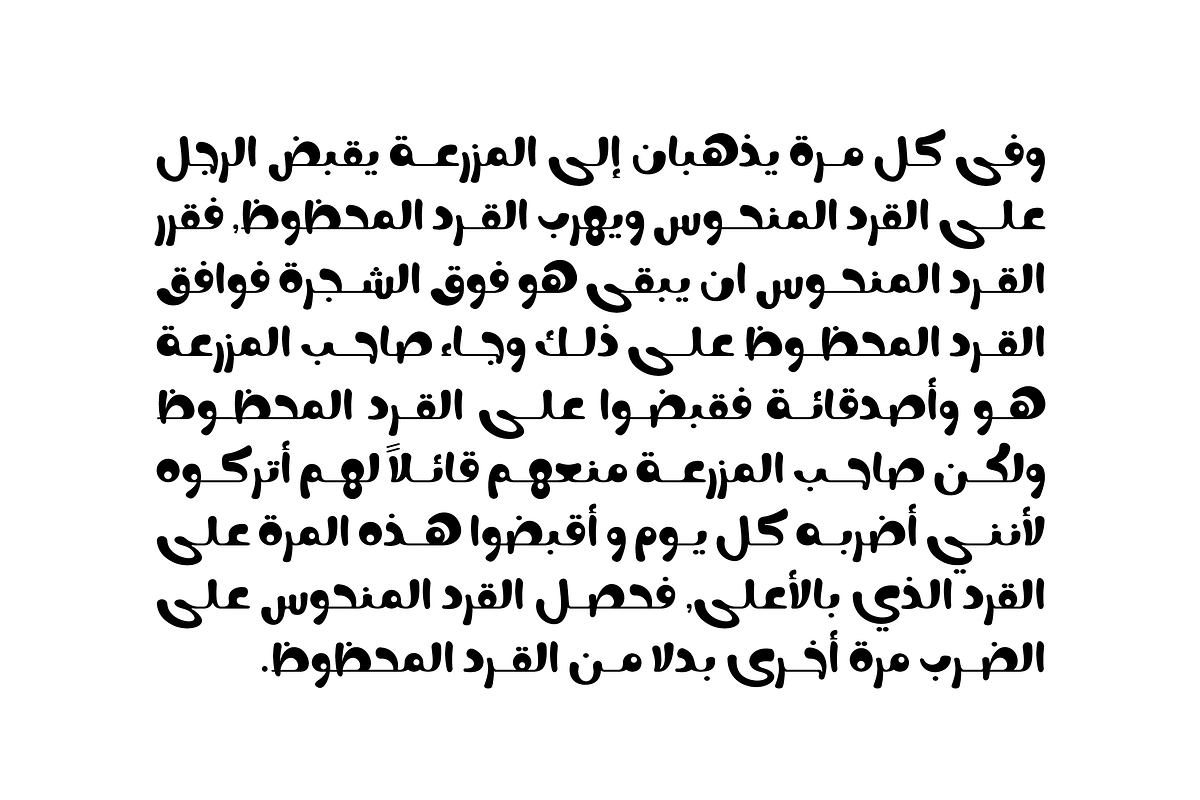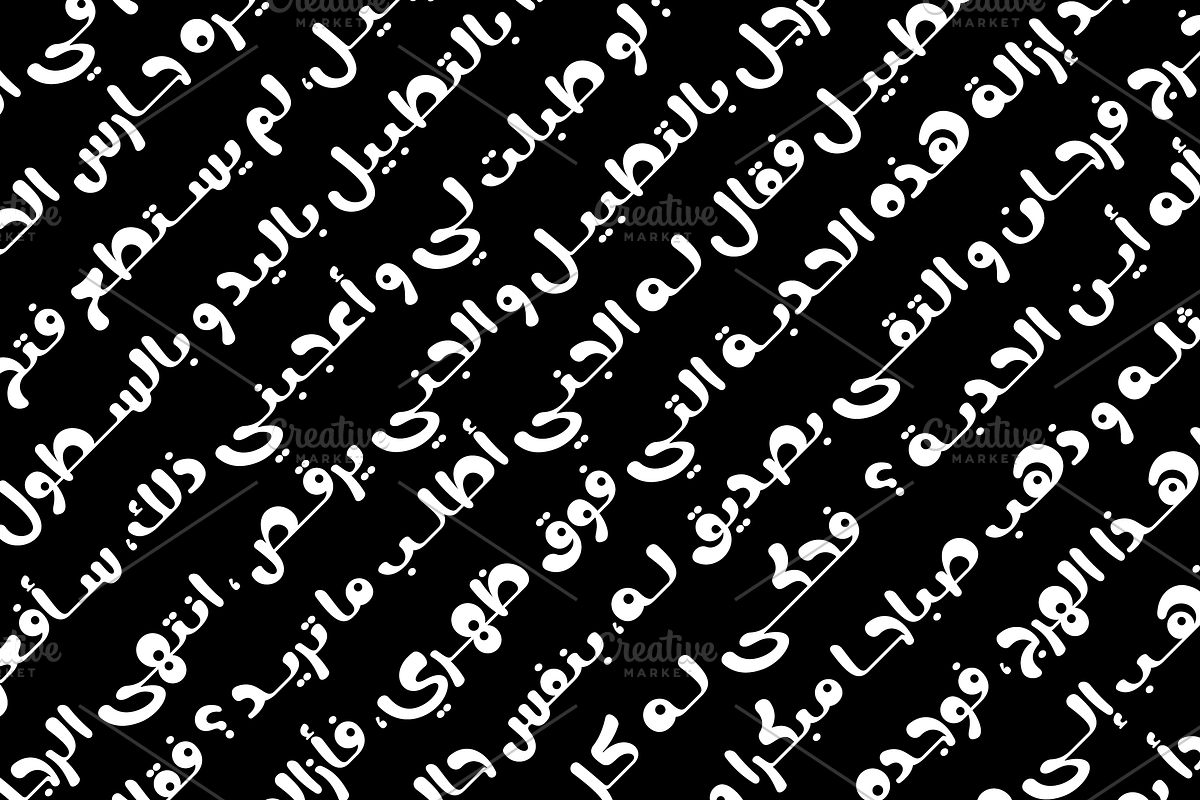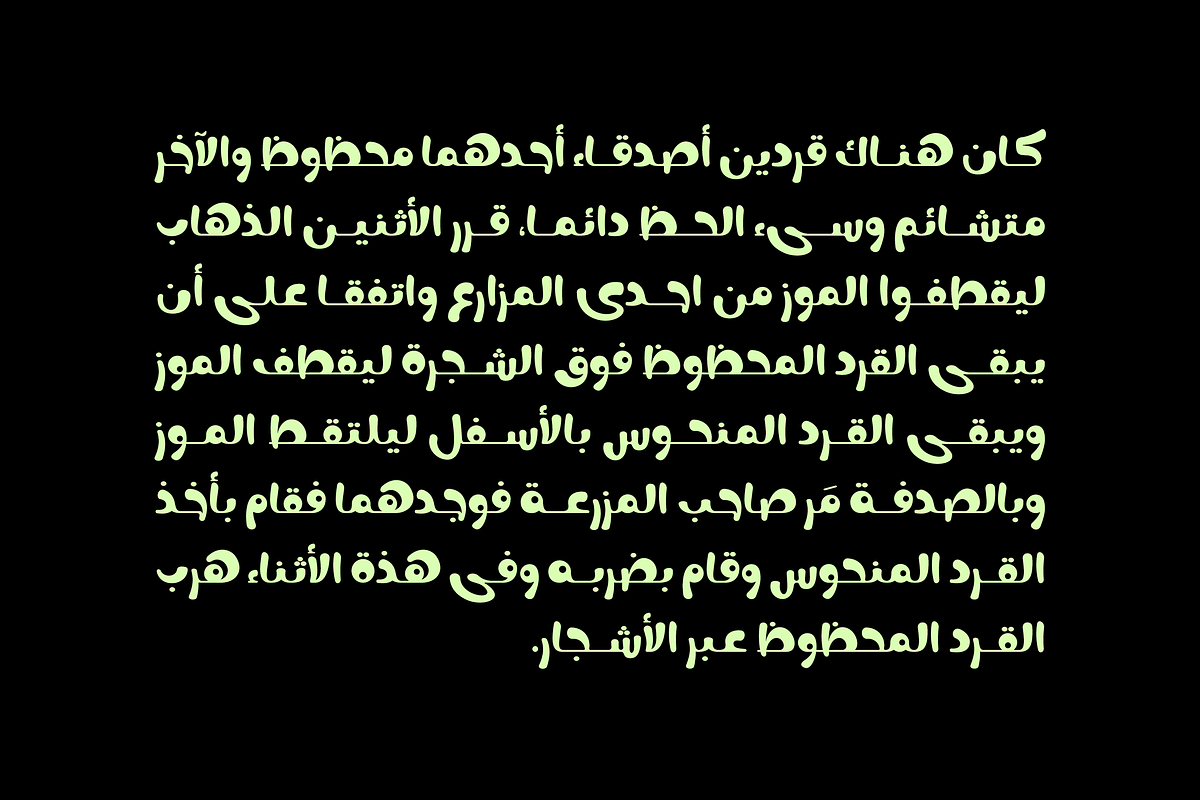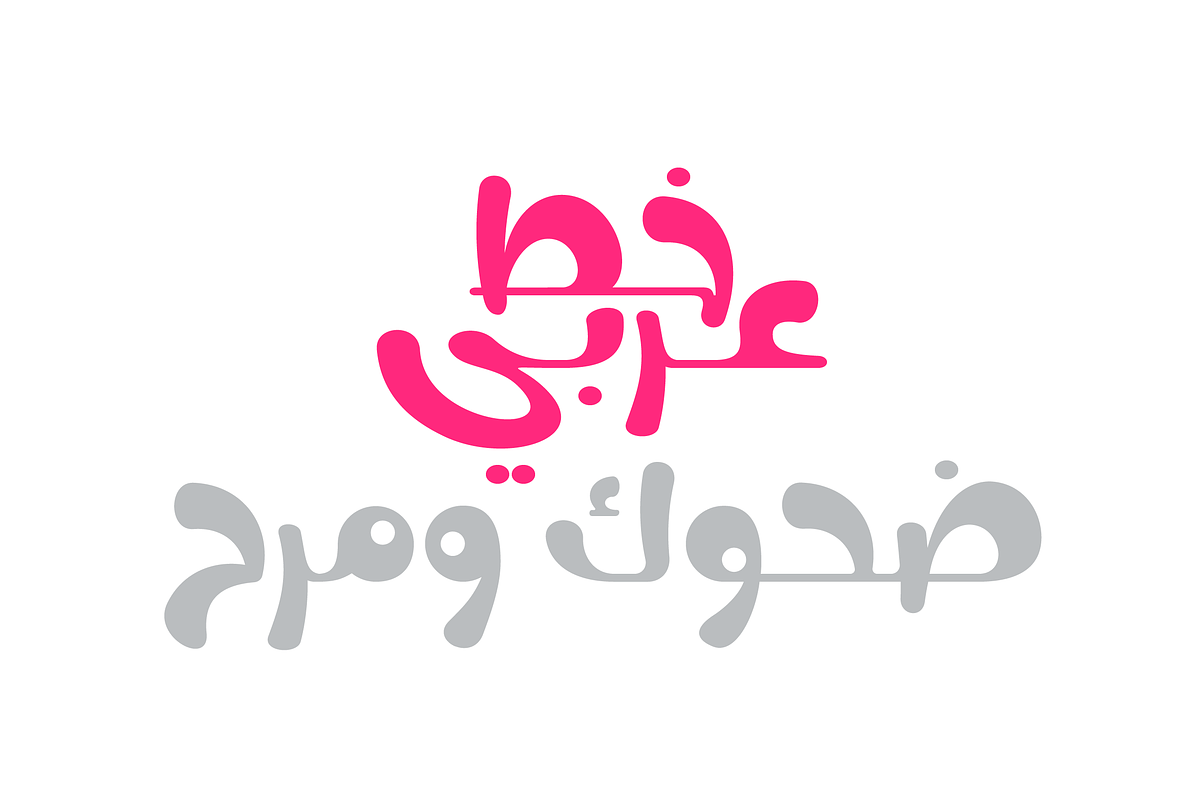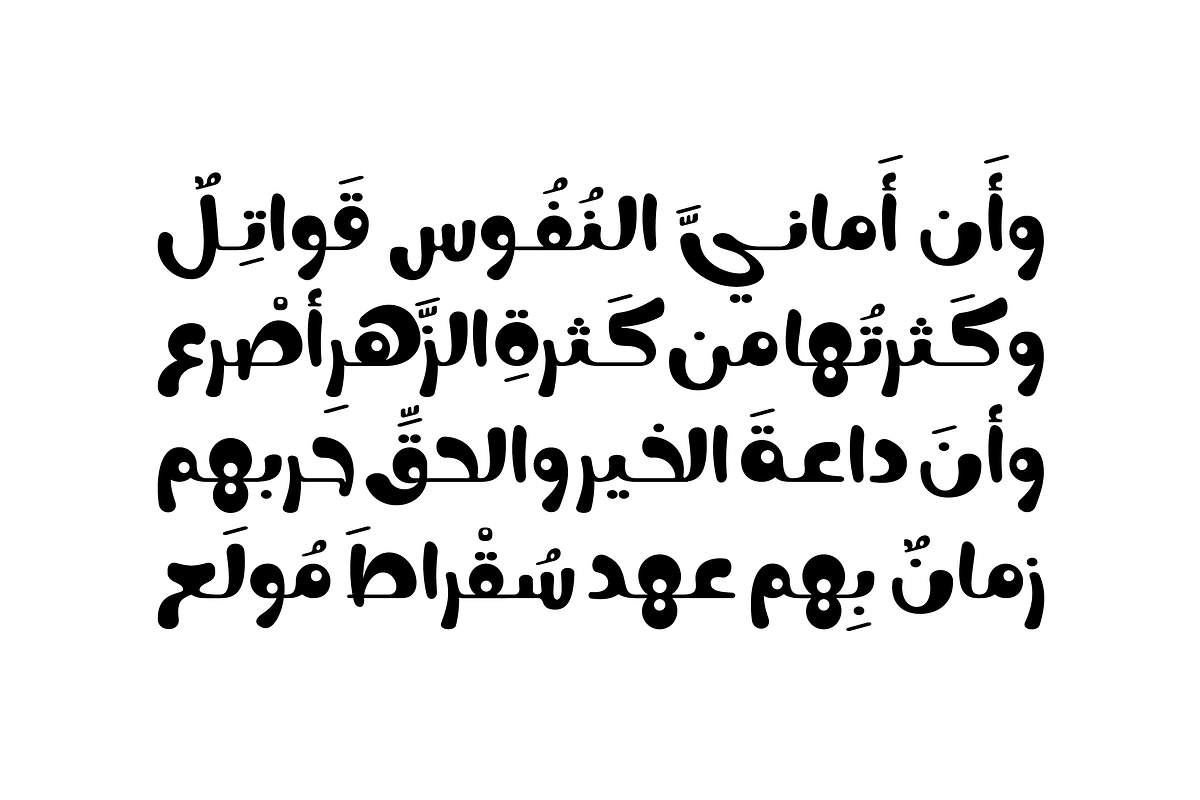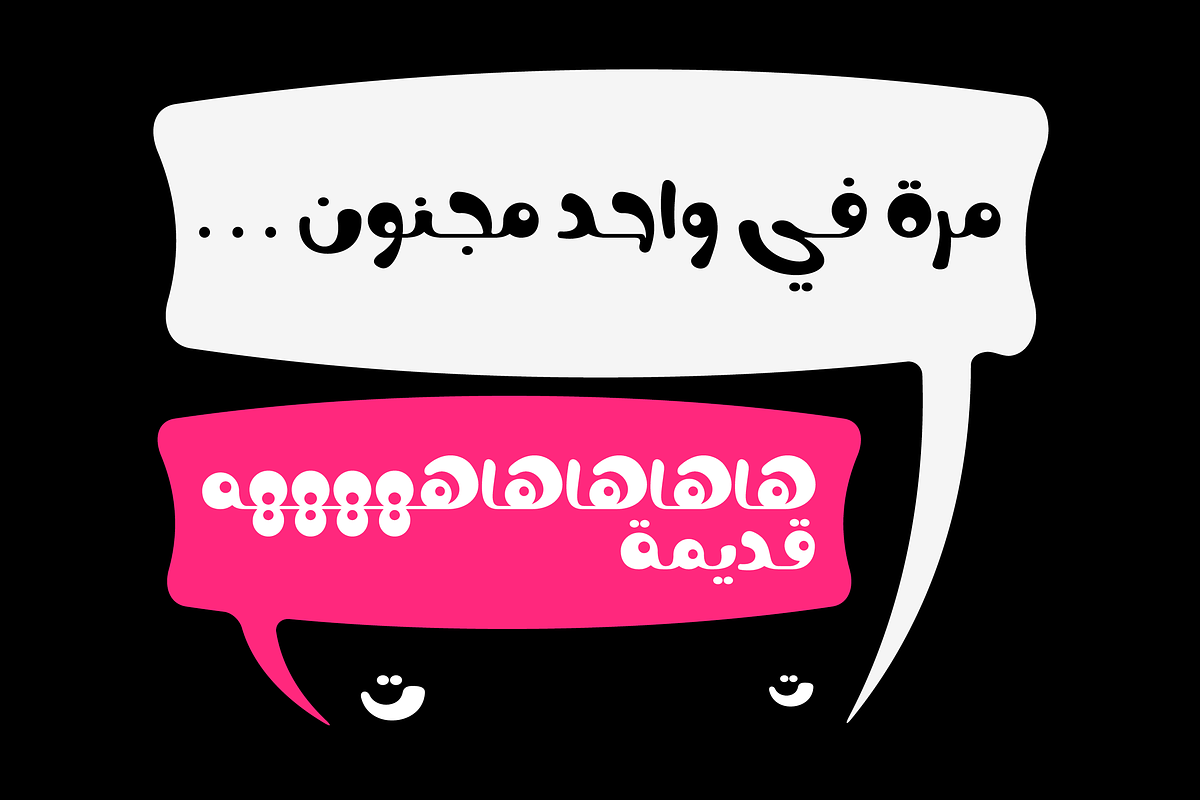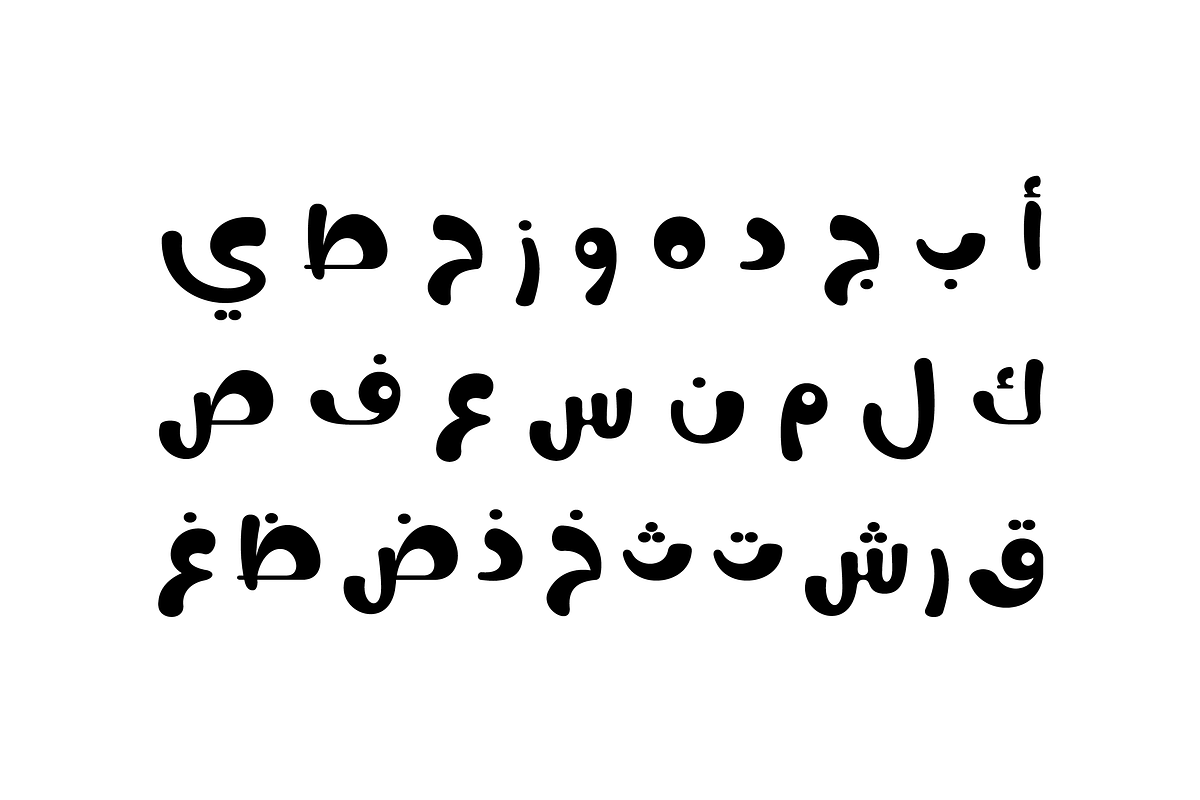
Nokta - Arabic font | خط نكتة
Nokta - Arabic font | خط نكتة by Mostafa El Abasiry is a font selected for branding, posters, packaging, typography.
Why Nokta - Arabic font | خط نكتة is worth a look
Nokta - Arabic font | خط نكتة by Mostafa El Abasiry fits naturally into Branding, posters, packaging, typography.